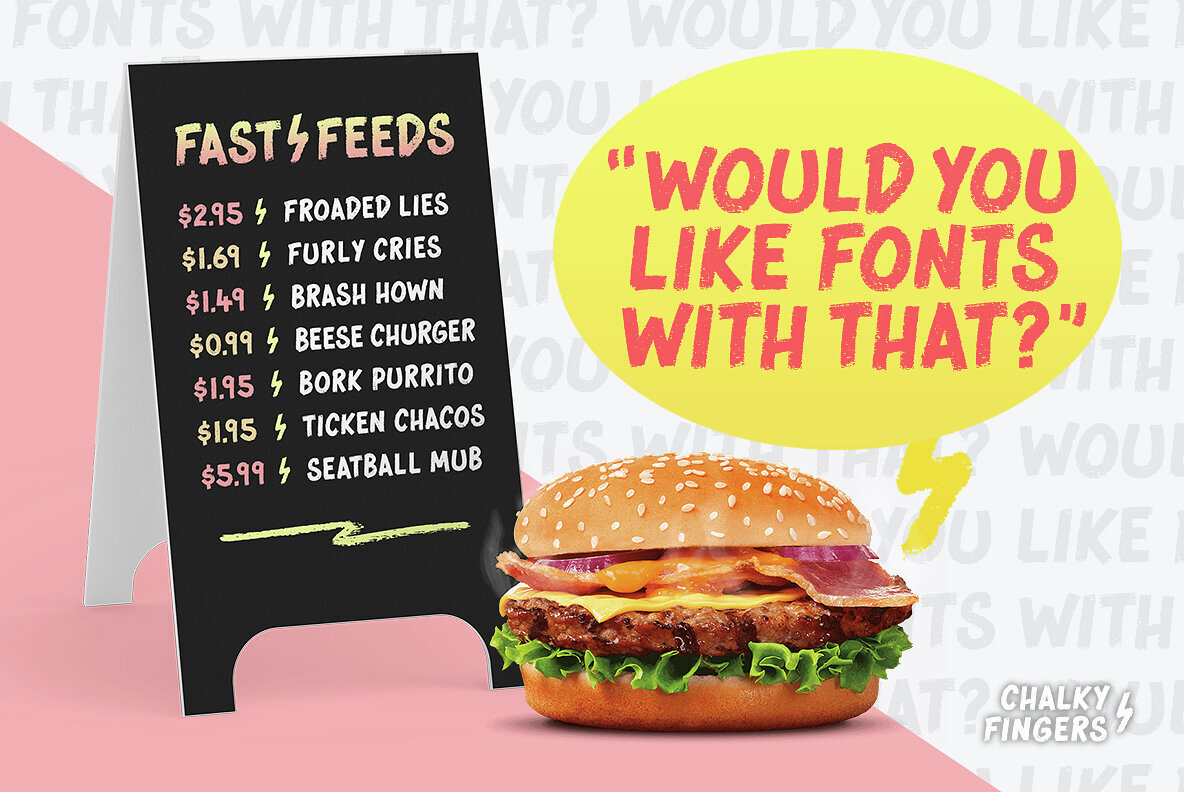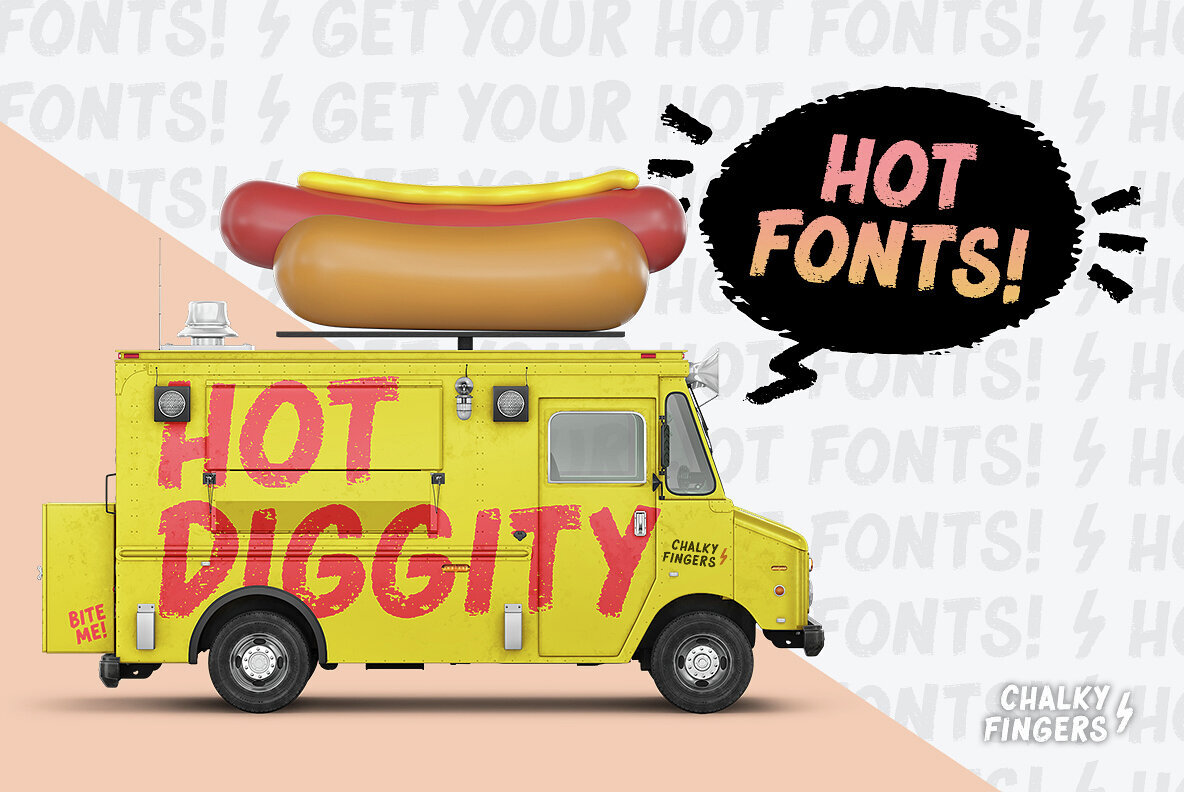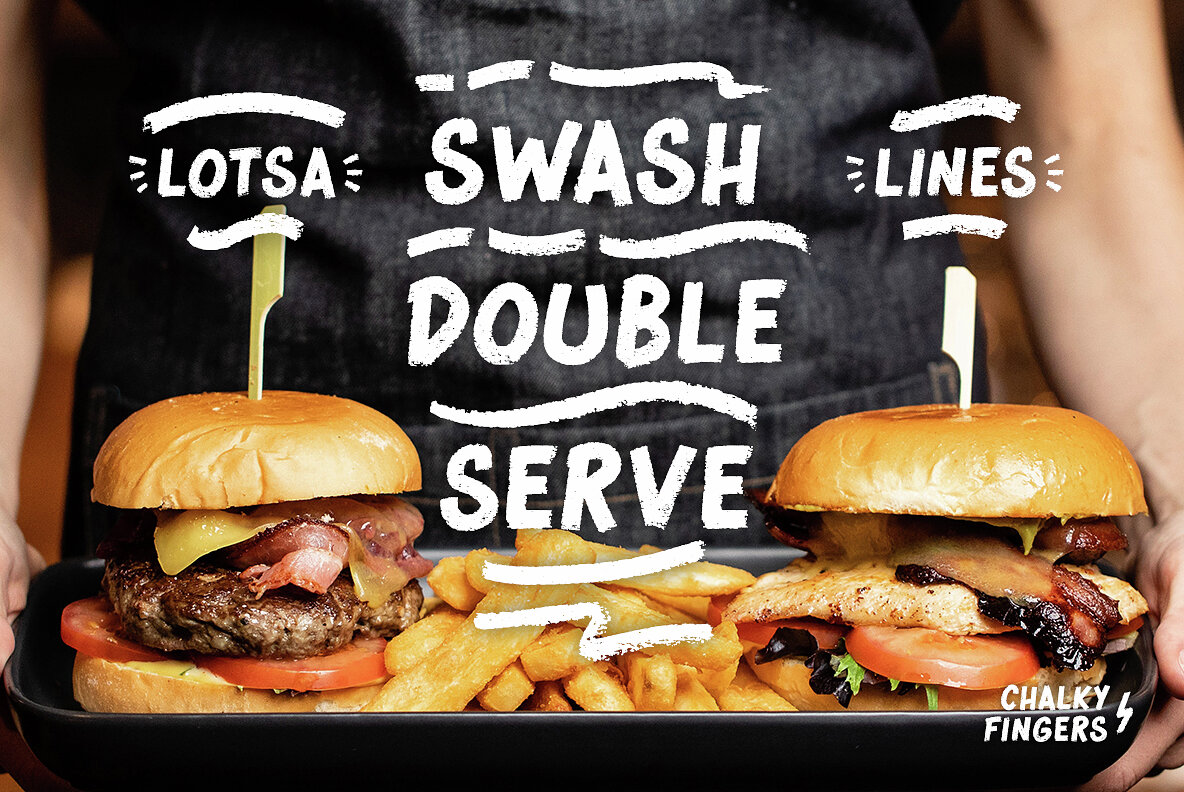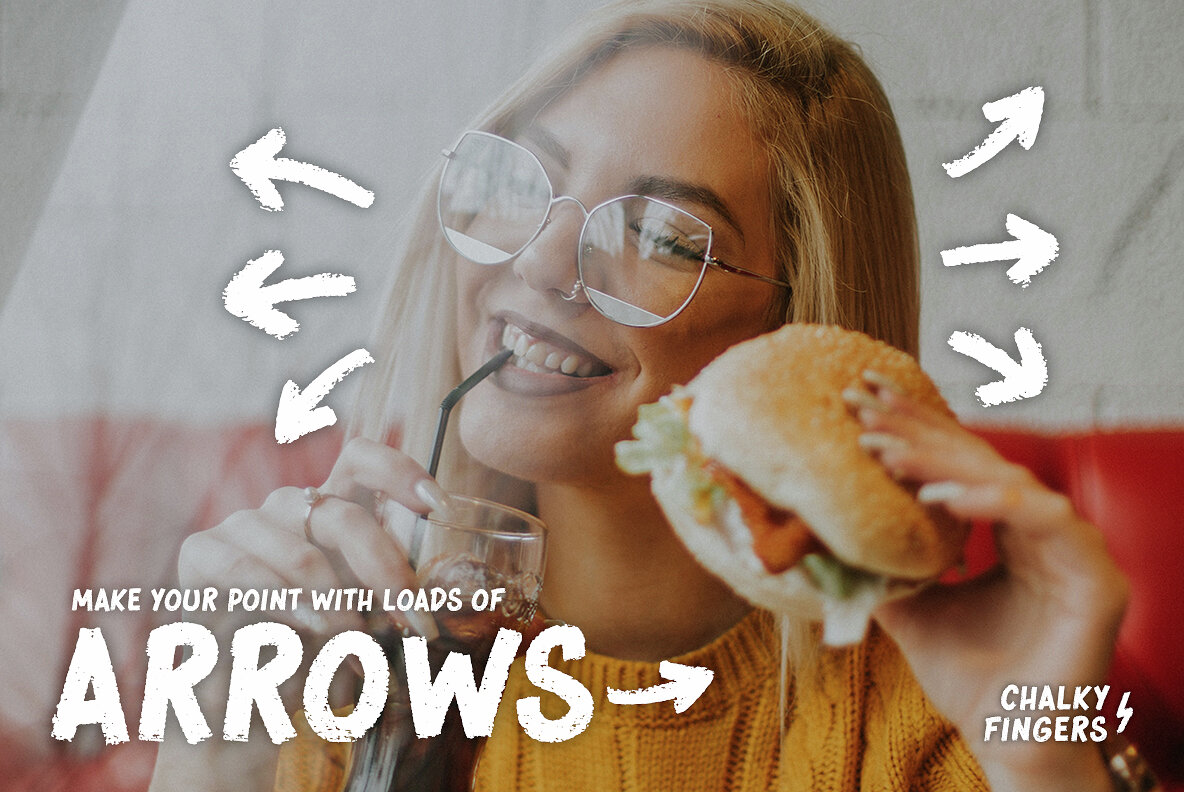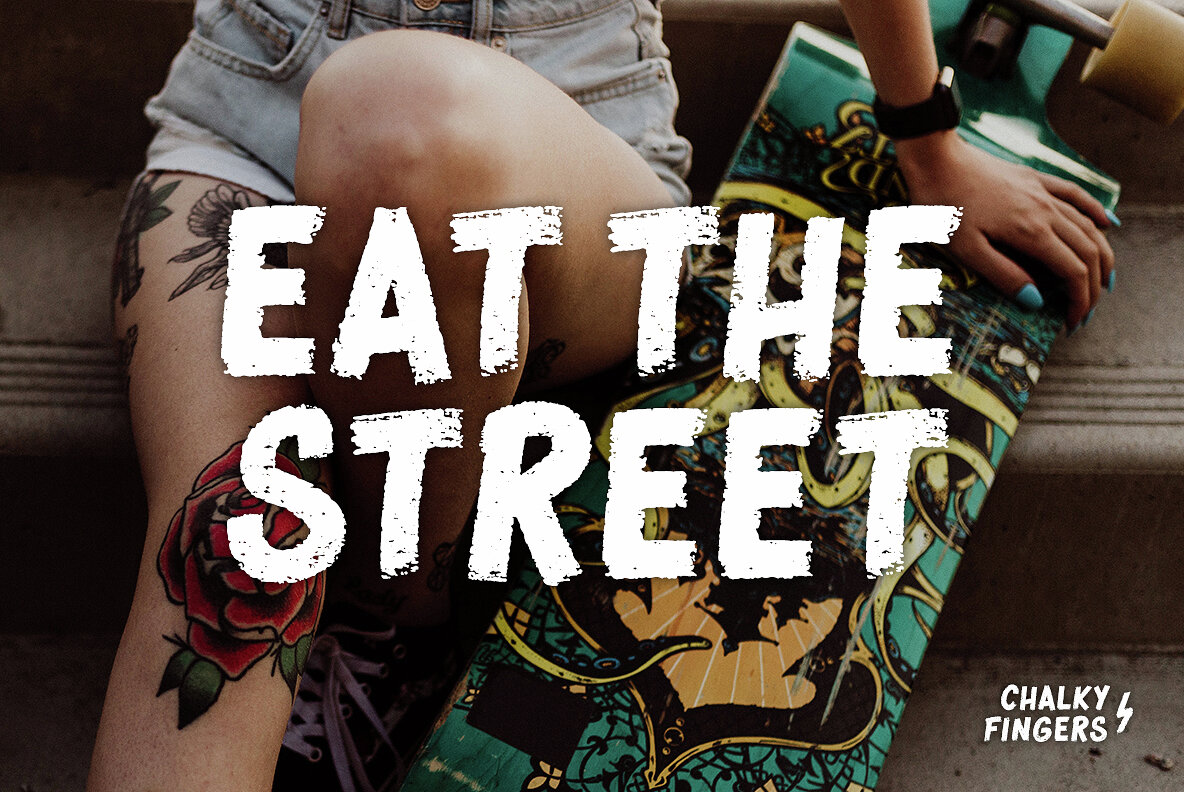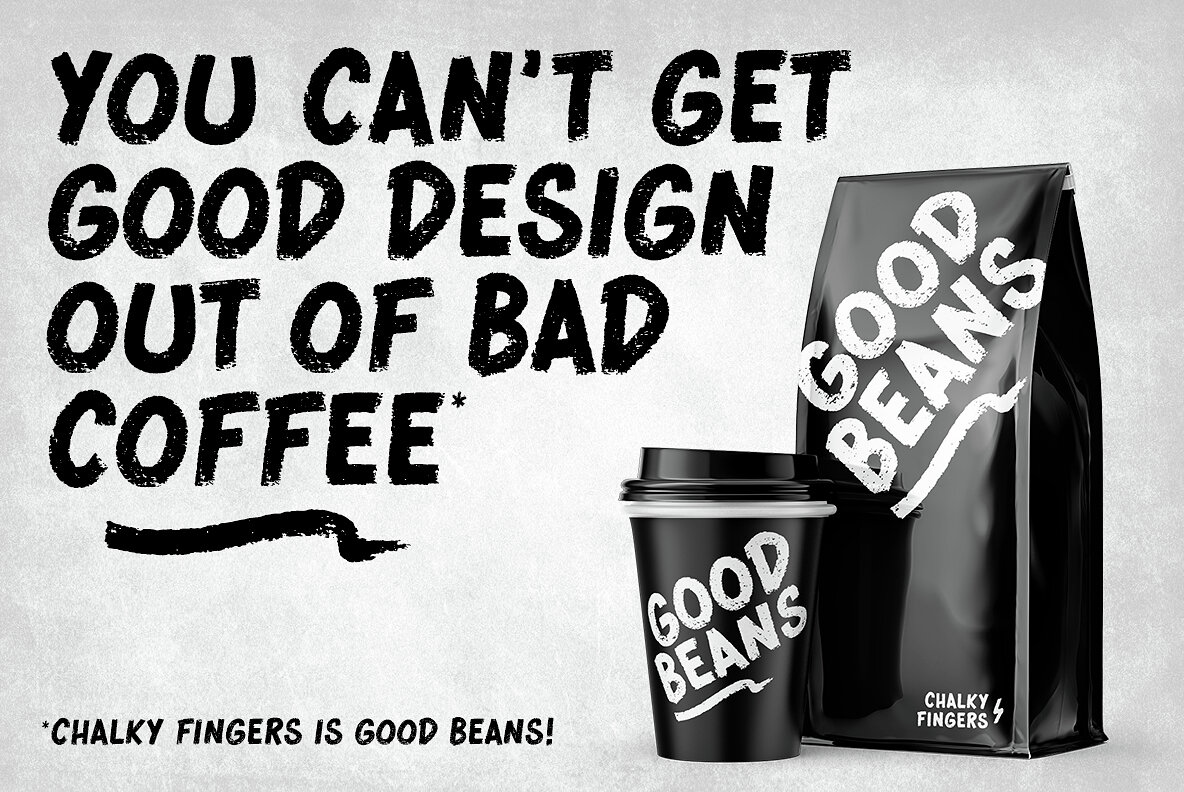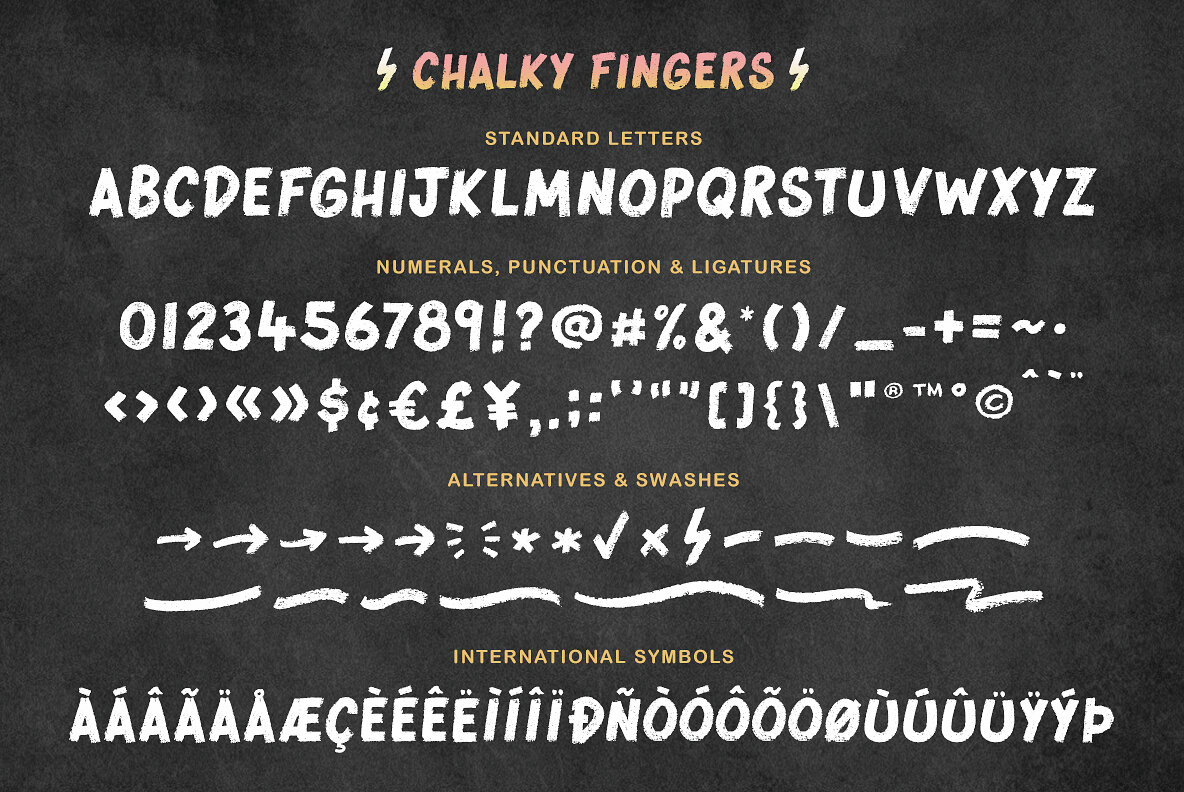
Chalky Fingers Font
Chalky Fingers
Chalky Fingers brings the classic charm of hand-lettered chalk designs straight from the 90s to your digital toolkit. Inspired by the authentic style used in cafes and bars, this textured font captures the essence of real chalk artistry. It's ideal for creating captivating menu boards, signage, posters, and more.
Designed for versatility, Chalky Fingers includes a variety of swashes and arrows for added emphasis. The font covers all your needs with numbers, punctuation, and multilingual characters, making it suitable for a broad range of projects such as social media graphics, t-shirts, children's books, and food packaging. Embrace the playful spirit of chalk lettering without any mess.